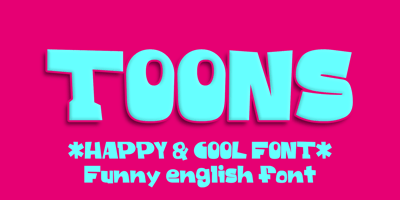
Toons Font Family was designed by Reza Bohloul and published by Bohloul Arabic Type Design. Toons contains 1 styles and family package options. A very cheerful font. This font is very thick and suitable for use in children’s games or animations. With this font, write very attractive, happy and comic titles and use it easily in graphic works. The design of this font looks sloppy and messy, but when you write your own text or title, while each letter is messed up, the text is completely connected.